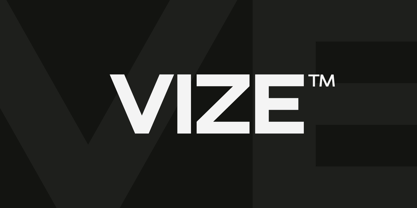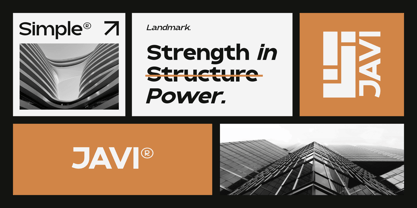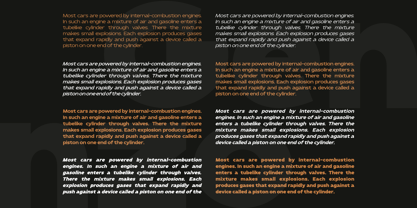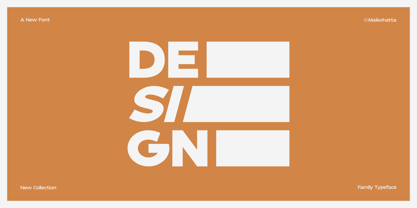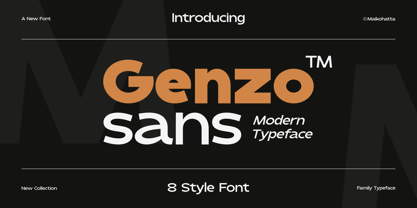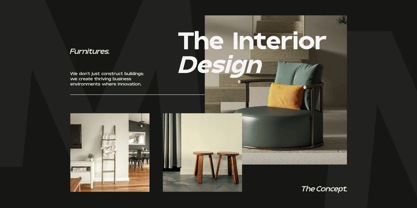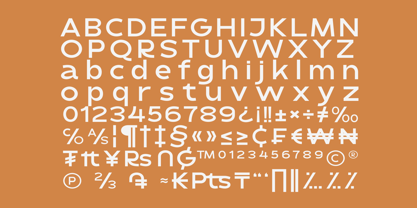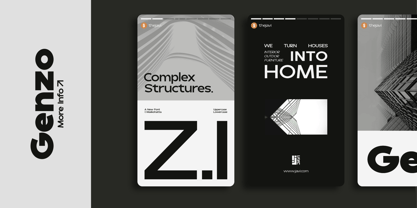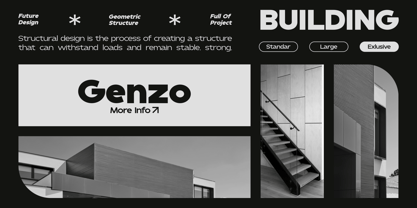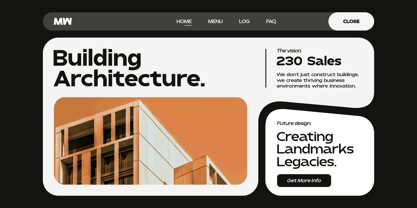
Genzo
by Maikohatta
The Genzo Font Family was designed by Gilang Ternadho and published by Maikohatta. Genzo contains 8 styles and family package options.
Introducing our new product Genzo - Modern Sans Serif Typeface
A sans-serif font family available in various styles is a highly versatile choice for graphic design and clean, modern text displays. This sans-serif font family offers flexibility in graphic design, and its various styles allow you to customize the appearance of text to suit your project's needs. With various combinations, you can create attractive and easy-to-read text displays in various contexts.
Genzo